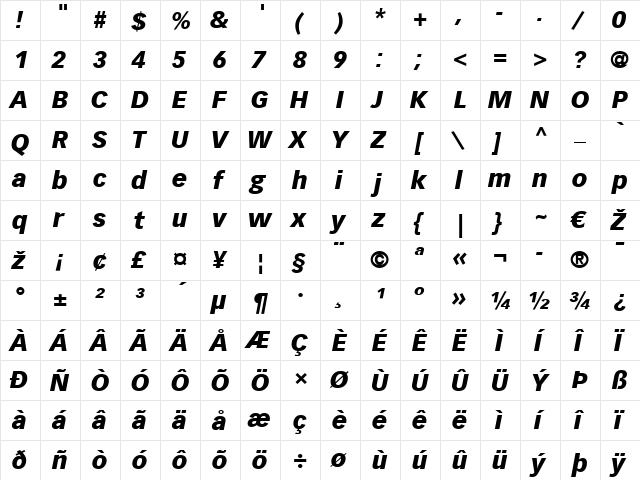
Vectora LT Roman Bold Italic Font Preview
Design Context for Vectora LT Roman Typeface
Vectora LT Roman takes a measured approach to typography — its balanced proportions and neutral character make it a reliable workhorse for both digital and print work. Its italic angle brings a sense of urgency and motion to the letterforms. The heavy weight commands attention and anchors typographic hierarchies.
Pro Tip: Use Vectora LT Roman for emphasis, pull quotes, and subheadings where its slanted energy can add rhythm to the layout.